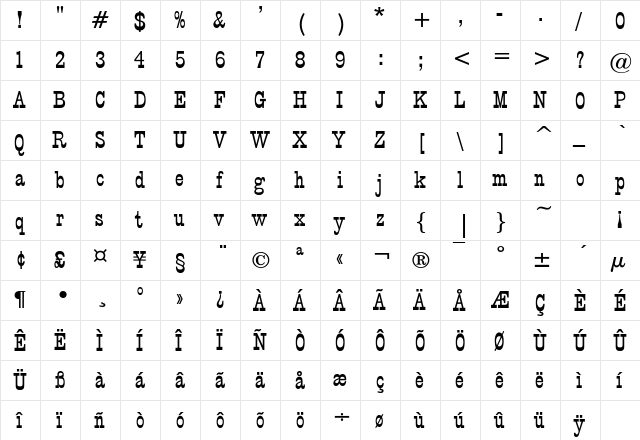
Circus Bold Font Preview
Circus Bold
Design Context for Circus Typeface
Circus is a composed and adaptable typeface that performs quietly and consistently across a wide range of design contexts. Its bold stroke weight gives it real presence on the page.